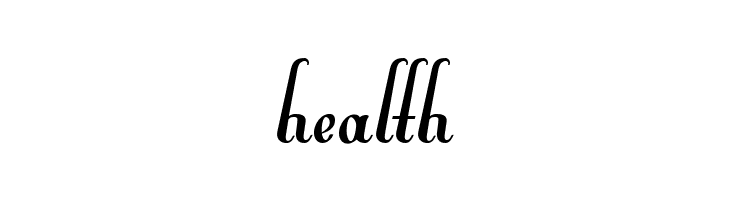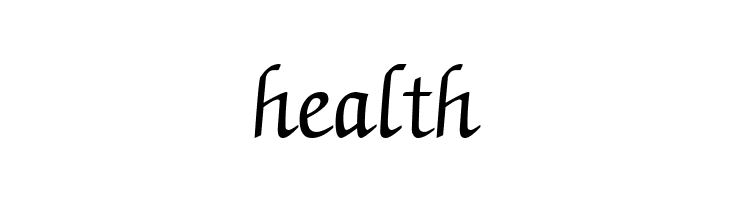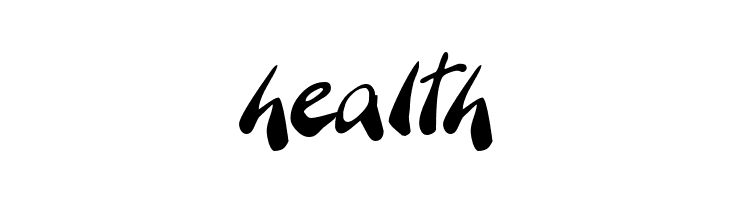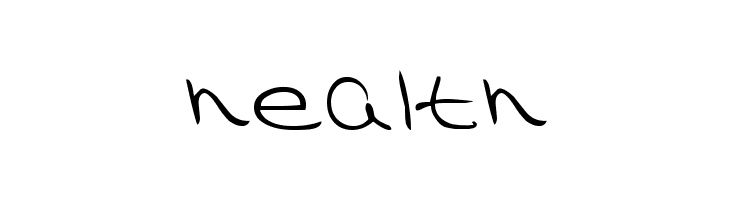
A classic, elegant font with a calligraphic influence.
A classic serif font with elegant slant and fluidity.
A bold, expressive handwritten font with fluid, dynamic strokes.
A dynamic, fluid script font with elegant, flowing strokes and a slight slant.
A bold, dynamic script font with fluid, expressive strokes.
A dynamic handwritten font with fluid, slightly slanted letterforms and medium contrast.
A bold, expressive brush script font with fluid strokes and a hand-drawn feel.
A bold, fluid script font with a modern, handwritten style.
A bold, angular font with a strong geometric influence.
A playful, casual handwritten font with fluid, irregular strokes.